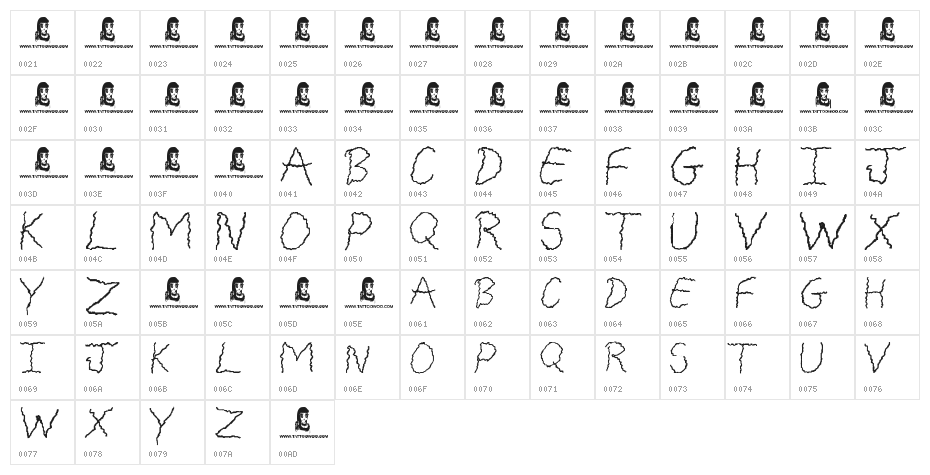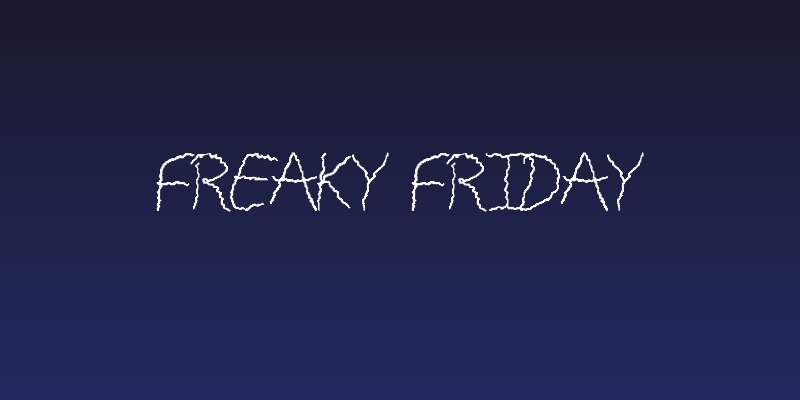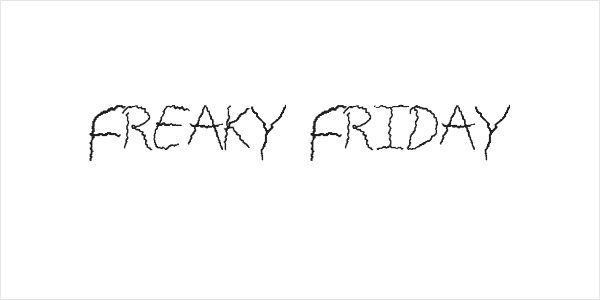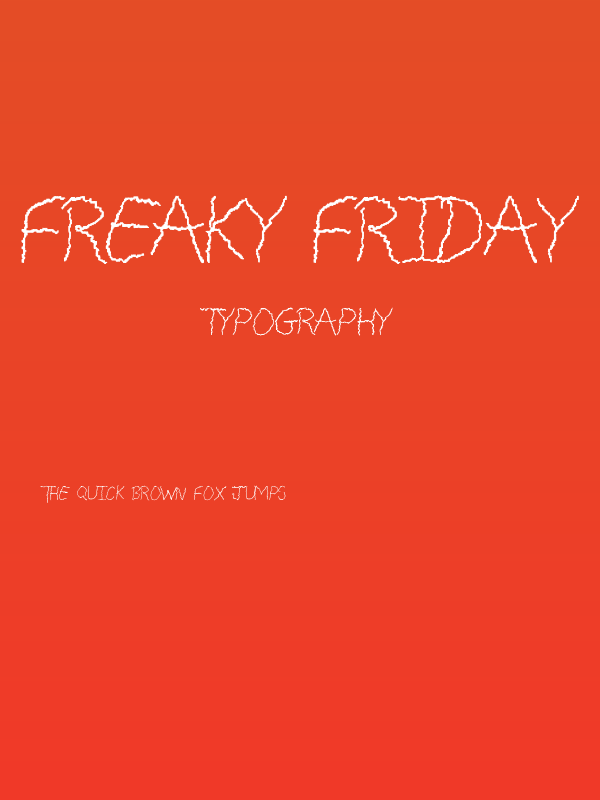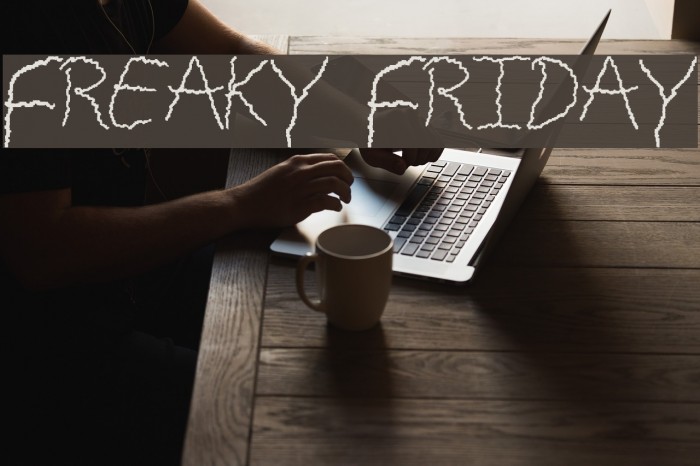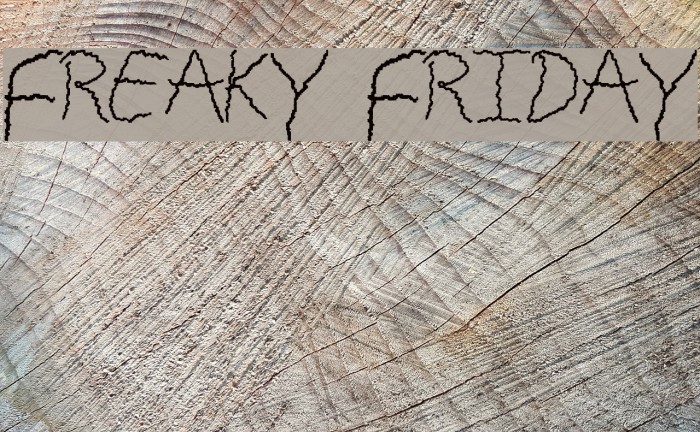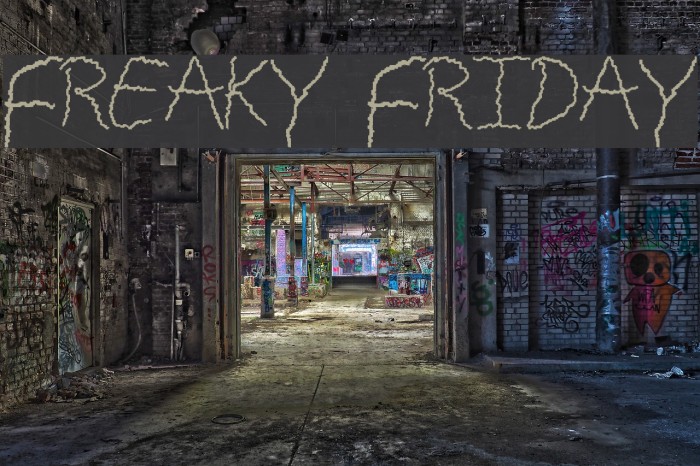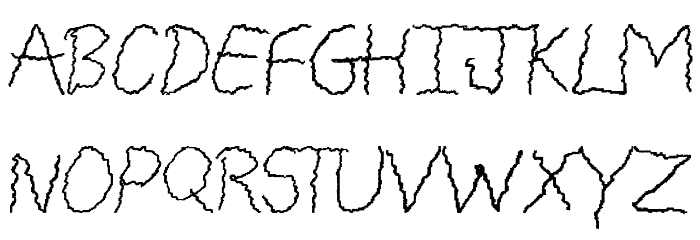
Freaky Friday Font
Freaky Friday Description
This font features a unique, jagged style that resembles lightning bolts or cracks, giving it an electrifying and chaotic appearance. The uppercase and lowercase letters maintain a consistent, erratic line quality that adds a sense of movement and energy. The characters are slightly irregular, enhancing the font's dynamic and edgy feel. The font includes a set of special characters that match the overall aesthetic, making it suitable for creative and unconventional design projects. Its distinctive style makes it stand out, ideal for capturing attention in bold headlines or artistic compositions.
| Use Case | Headlines, Artistic compositions, Posters |
| Proposed Projects | Ideal for horror-themed posters, edgy album covers, or unique branding projects. |